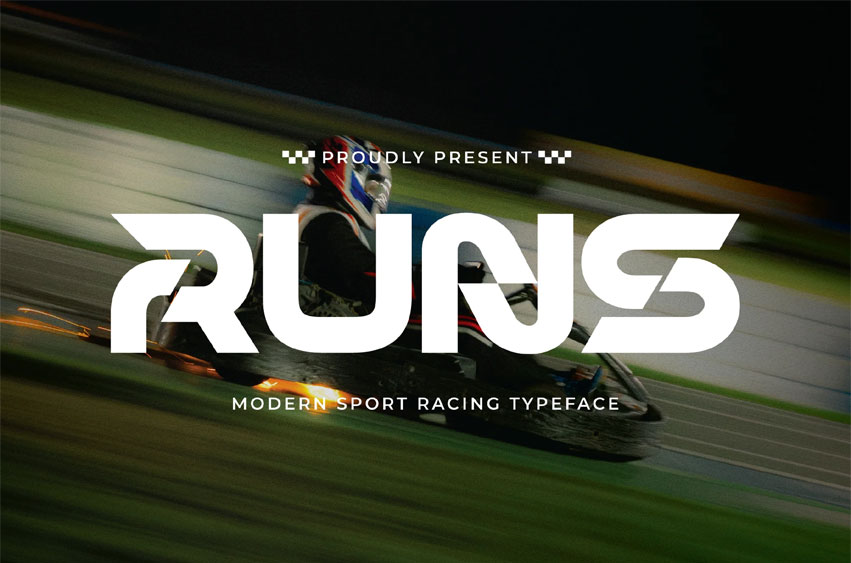
Runs Font is a bold, high-performance display font designed to capture the adrenaline of speed, competition, and motion. Inspired by modern motorsports, street racing culture, and dynamic athletic branding, this typeface delivers a powerful visual impact that instantly elevates your design.
Built with sharp angles, aggressive strokes, and fast-flowing letterforms, Sport Racing Runs is perfect for projects that demand attention and energy. Whether you’re creating racing logos, sports branding, automotive posters, gaming titles, or action-packed social media visuals, this font brings a strong sense of movement and intensity to every composition.
Designed for maximum readability while maintaining a bold racing character, this font performs exceptionally well in both large headlines and short impactful text. It pairs seamlessly with modern layouts, bold imagery, and high-contrast color schemes.
If you want your design to feel fast, powerful, and competitive, Sport Racing Runs Font is the perfect choice to push your visuals to the next level.